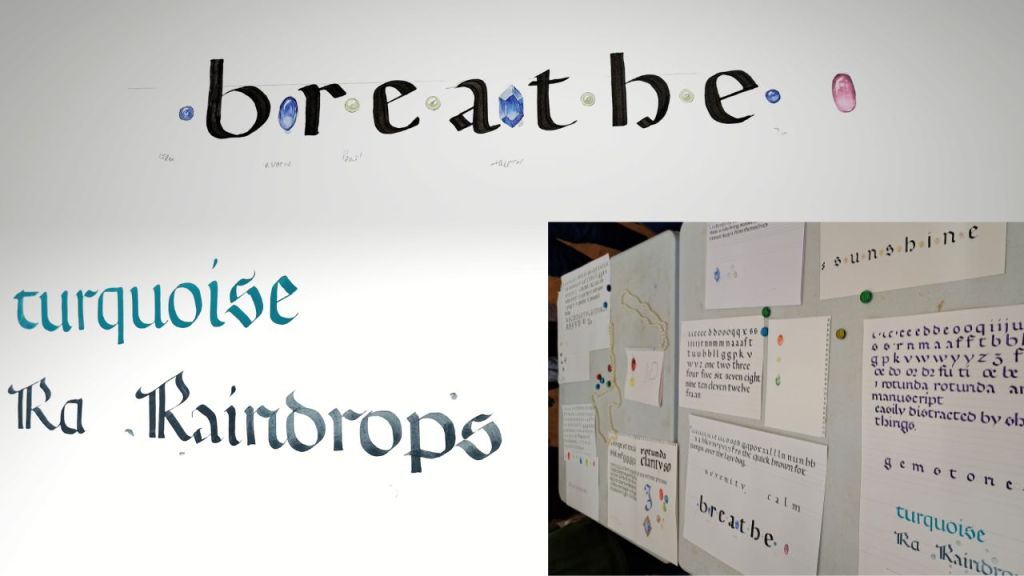
The Rotunda script is a rounded type of gothic, which is much less angular and compressed than other gothic hands. It is mainly seen in manuscripts from southern Europe of the Middle Ages. Often the borders of manuscripts from this time were richly decorated with painted gemstones and jewels.
Taking both these elements, this workshop explores Rotunda lettering and how it is constructed, and then uses some simple drawing techniques add some fantastical jewels to your lettering